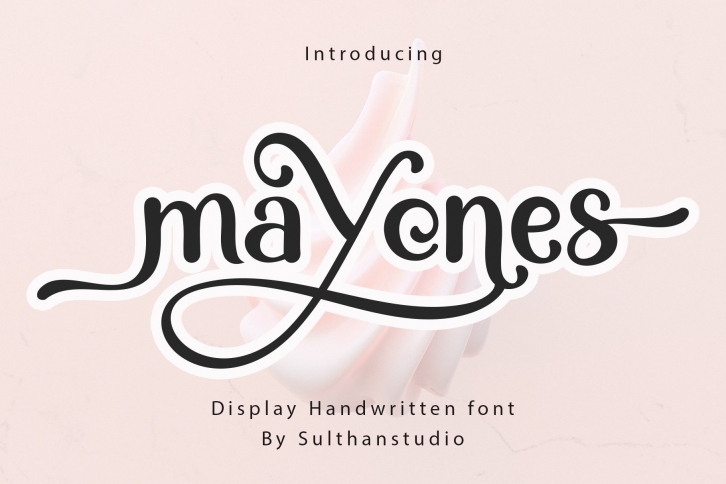
Mayones is a trendy and unique font with an authentic style. It was designed by Sulthan studio and it's a great choice for creative people who need such a font. It was released on March 2, 2022 and the file size is 4.44 MB. Mayones will add an organic vibe to any design idea!